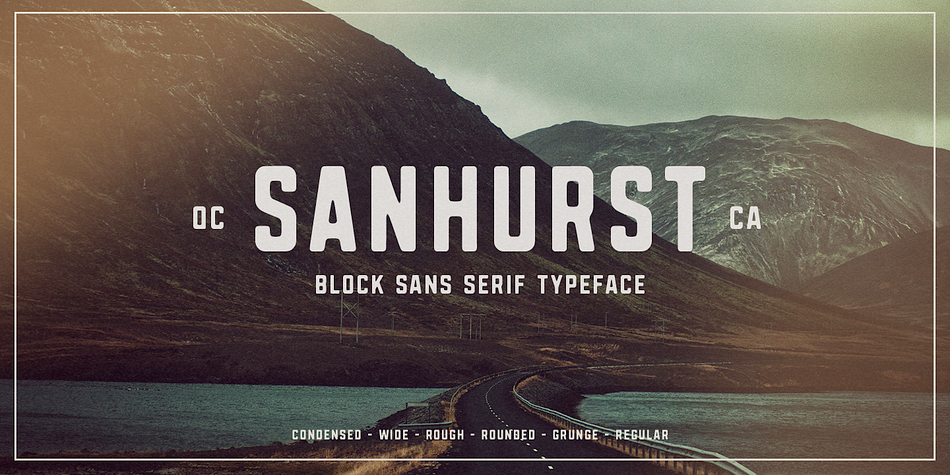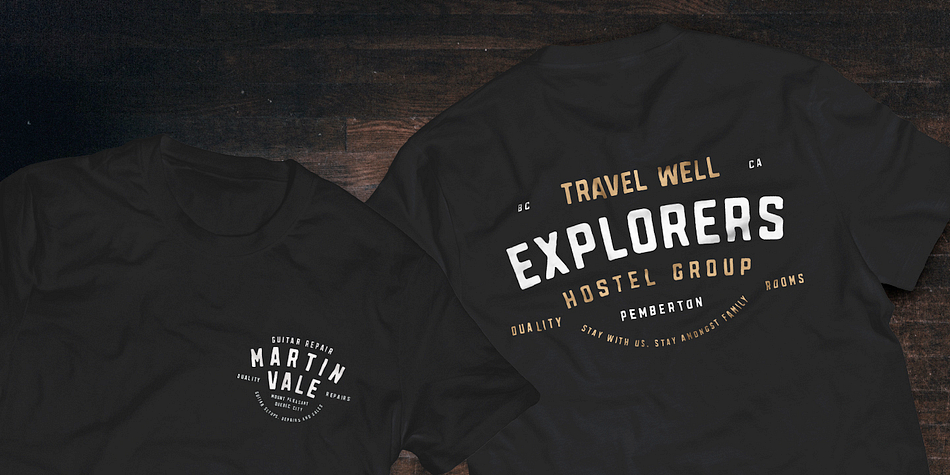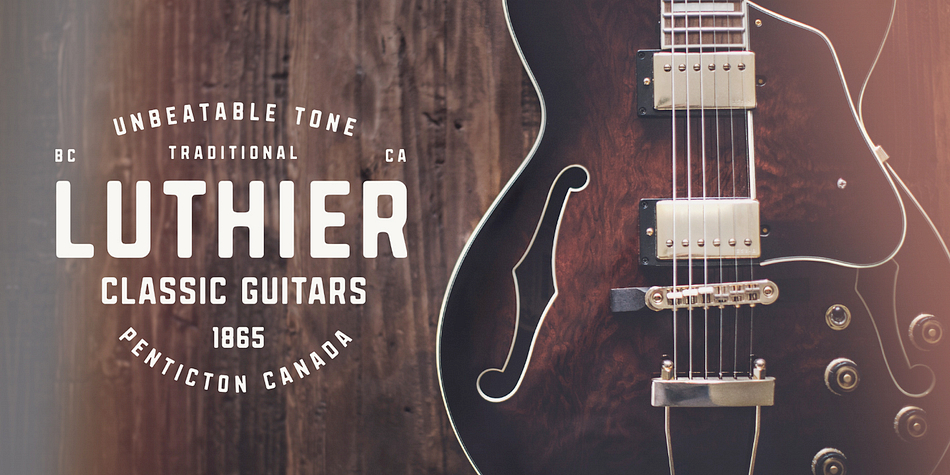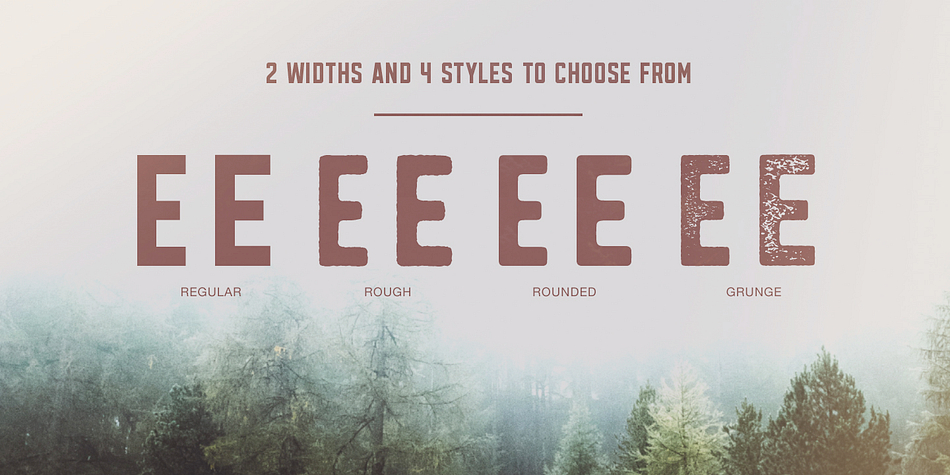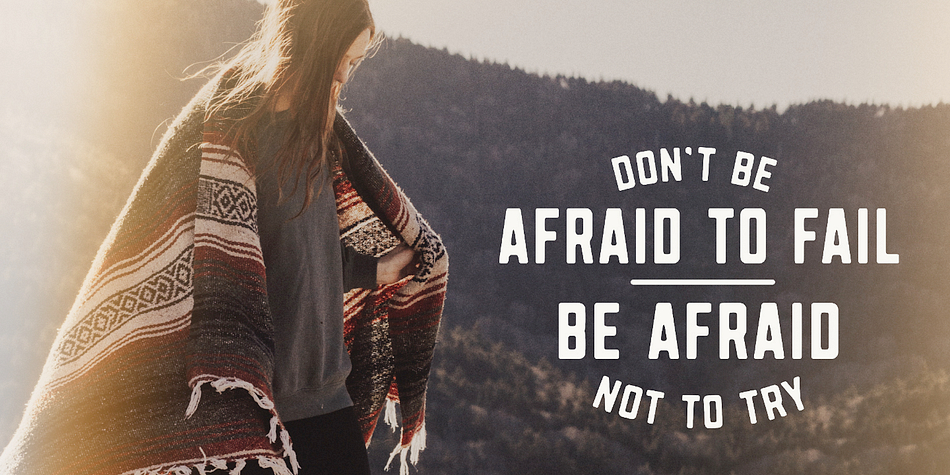
Designed by Greg Nicholls, Sanhurst is a display sans font family. This typeface has eight styles and was published by Rook Design Supply.
Sanhurst is a versatile family of fonts designed for strong, classic branding. Rounded, rough and grunge versions are included to give your design a little more of a retro printed look while the regular versions are great for a more modern, digital look. The edges of the characters are a lot more ‘boxy’ than your average font which gives off a strong, industrial feel. Sanhurst works fantastic for website headers, clothing designs, magazine advertisements, logos, branding and much more.
Foundry | Rook Design Supply |
Designer | Greg Nicholls |